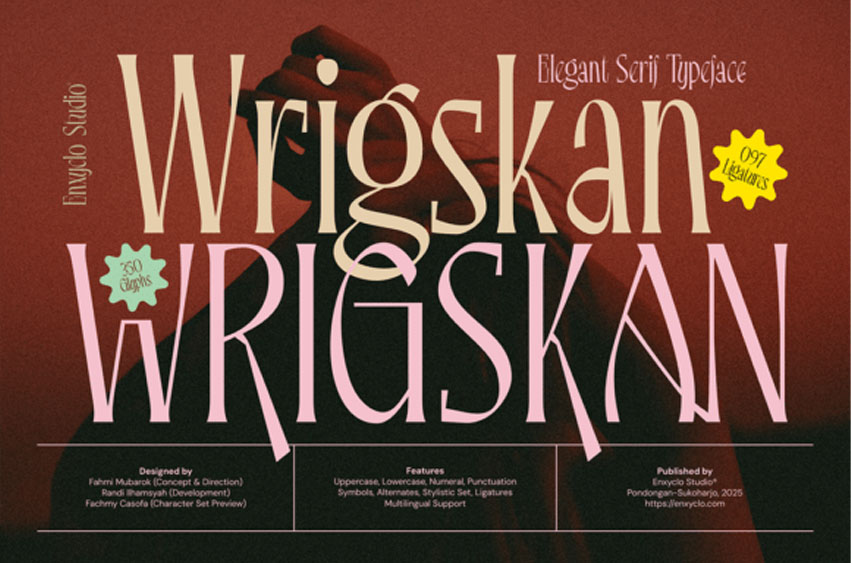
Wrigskan Font
Wrigskan Font Immerse yourself in the world of opulence with Wrigskan, a grand serif font that instantly adds a touch of sophistication to your brand. It encapsulates the spirit of modern luxury, beautifully intersecting the worlds of fashion and high-end visuals. Wrigskan is an exceptional choice for those seeking to create enriched logos or branded materials that project an aura of exclusivity.
Wrigskan transcends trends, its design effortlessly catering to both a high-fashion cosmetic brand or a ritzy boutique persona. Its clean, yet compelling style adds a posh and glamorous character to all your ventures. Created with vogue-focused designers and high-end brands in mind, Wrigskan skillfully merges timeless serif principles with contemporary stylistic accents.
Its generous collection of ligatures and glyphs increases its versatility, empowering your creation of remarkable typography that duly distinguishes your brand in a highly competitive space. Navigate the path of elegance with Wrigskan, a font that redefines sumptuous elegance for everything from your logo, branding, to skincare packaging, and beyond. This font type comes with a variety of features including True Type Font (TTF), Open Type Font (OTF), and Web Open Font Formats (WOFF1 & WOFF2). Further adding to its range, Wrigskan comprises of 350 glyphs, 97 distinctive ligatures, upper and lower case letters, numerals, punctuations, symbols, stylistic sets, and alternates.
With multi-lingual support, it’s equally as perfect for global fashion houses and luxury cosmetic brands as it is for boutique branding and magazine layouts. Wrigskan also lends itself perfectly to the creation of high-end logos, identity systems, and artistic packaging and promotional materials, all designed to captivate and appeal to the discerning aesthetic aficionado.